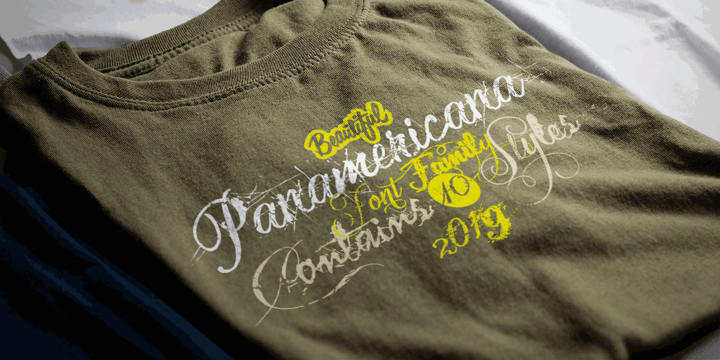
Panamericana
La familia tipográfica Panamericana fue diseñada por Carlos Fabián Camargo Guerrero y publicada por Andinistas. Panamericana contiene 10 estilos y opciones de paquete familiar. Más información sobre esta familia
@andinistas presents an update of Panamericana in 2019, a typographic family worn out and expressive with 10 fonts perfect for short writings with cursive and stained calligraphic look. Panamericana works perfectly in headlines or logos of a film because its different thicknesses of corrosion and textures guarantee striking messages on t-shirts, stickers, skateboards, magazines, printed quotes, packaging, headings and all the designs you can imagine. Panamericana works best by exchanging and mixing letter by letter among its 10 fonts. In this way, you will take advantage of its corrosion levels by mixing the 3 uppercase, lowercase and ideal calipers for the beginning, middle or end of words, phrases or short paragraphs. Each empty and full Panamerican area was designed with care, care and attention and that is why its more than 2000 glyphs were carefully planned in 10 fonts designed for maximum performance in compositions that need scruffy and creative visual properties.